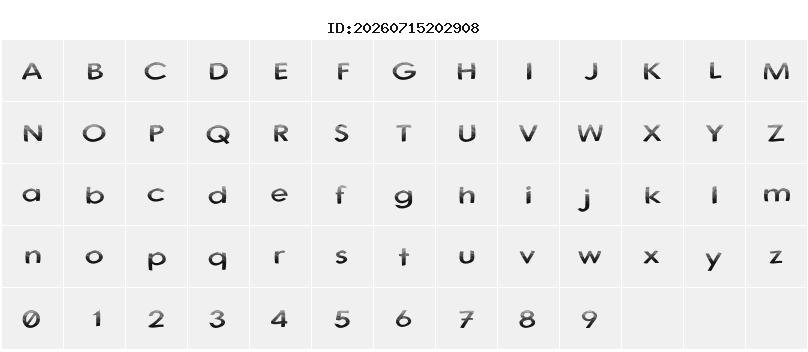
• Font Name: Australian Sunrise
• Full Font Name: Australian Sunrise
• Copyright: ©GemFonts98 (created from font called 'Bog Standard', also by Gemfonts but not yet being made available to public)
About Australian Sunrise.ttf
Australian Sunrise.ttf is a modern, elegant sans-serif font designed for ultimate readability and visual harmony. Perfect for branding, headlines, web design, and print materials.